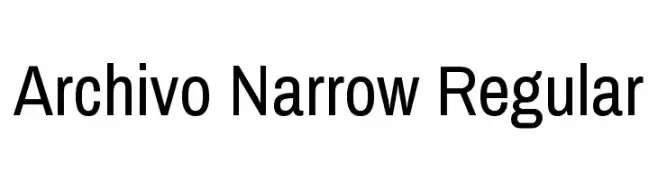
• Mignon-Semibold
• Cutive Mono
A monospaced typewriter-style font with consistent strokes and subtle serifs.
• Qhoraan
A modern, clean font with balanced proportions and subtle elegance.
• Destkhat VI
A fluid and artistic script font with a handwritten quality.
• Andada SC
A classic serif font with modern elegance and medium contrast.
• Source Code Pro Light
A modern, monospaced font with clean lines and consistent spacing, perfect for coding.
• Archivo Narrow Regular
A modern, narrow sans-serif font with clean lines and uniform stroke width.
• Alef Bold
A bold, modern sans-serif font with consistent stroke width and normal spacing.
• Courgette Regular
A flowing, cursive script font with elegant, connected characters.
• Titillium Web
A modern, geometric sans-serif font with balanced proportions and medium contrast.